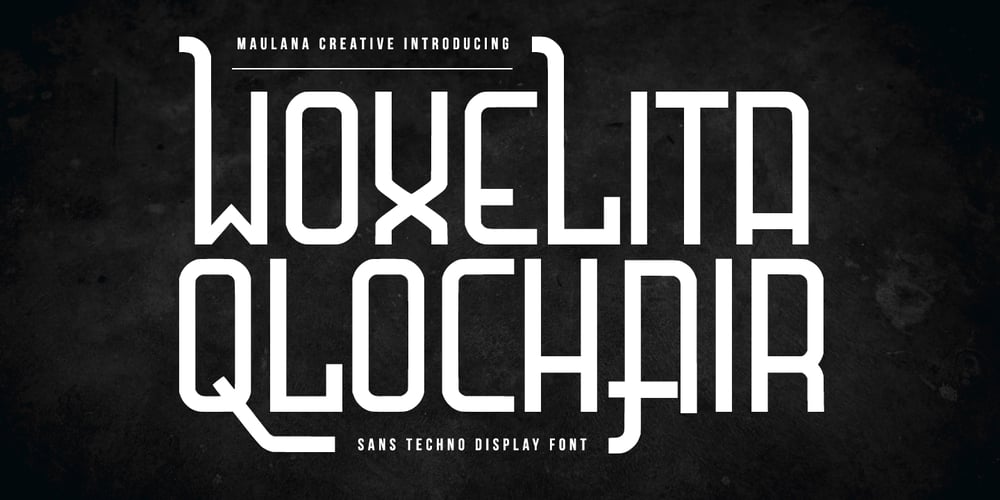
Woxelita Qlochair Font Family was designed by Gilang Maulana and published by Maulana Creative. Woxelita Qlochair contains 1 styles and family package options. Woxelita Qlochair sans techno display font. Bold stroke, fun character with a bit of ligatures and alternates. To give you an extra creative work. Woxelita Qlochair font support multilingual more than 100+ language. This font is good for logo design, Social media, Movie Titles, Books Titles, a short text even a long text letter and good for your secondary text font with script or serif. Make a stunning work with Woxelita Qlochair font. Cheers, Maulana Creative